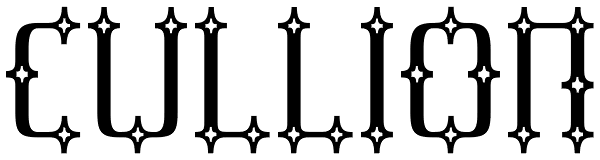
Cullion
Cullion is a new departure for Greater Albion, being a modern Fraktur, embodying future trends sch as highly stylised glyphs, a single case of lettering and highly evolved letterforms. At the same time it can trace its inspiration back to...